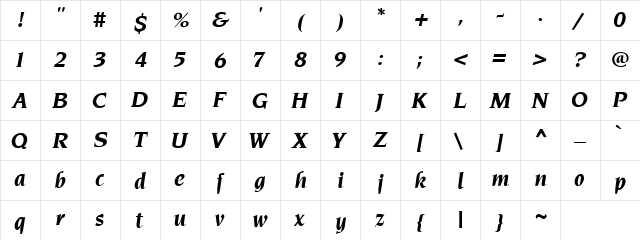
Intrepid-BoldItalic Regular Normal Font Preview
Design Context for Intrepid-BoldItalic Regular Typeface
Intrepid-BoldItalic Regular takes a measured approach to typography — its balanced proportions and neutral character make it a reliable workhorse for both digital and print work. The slanted form adds forward momentum and visual energy. The heavy weight commands attention and anchors typographic hierarchies.
Pro Tip: Try Intrepid-BoldItalic Regular for annotation and caption copy alongside an upright companion — the contrast in angle creates a dynamic but ordered typographic system.